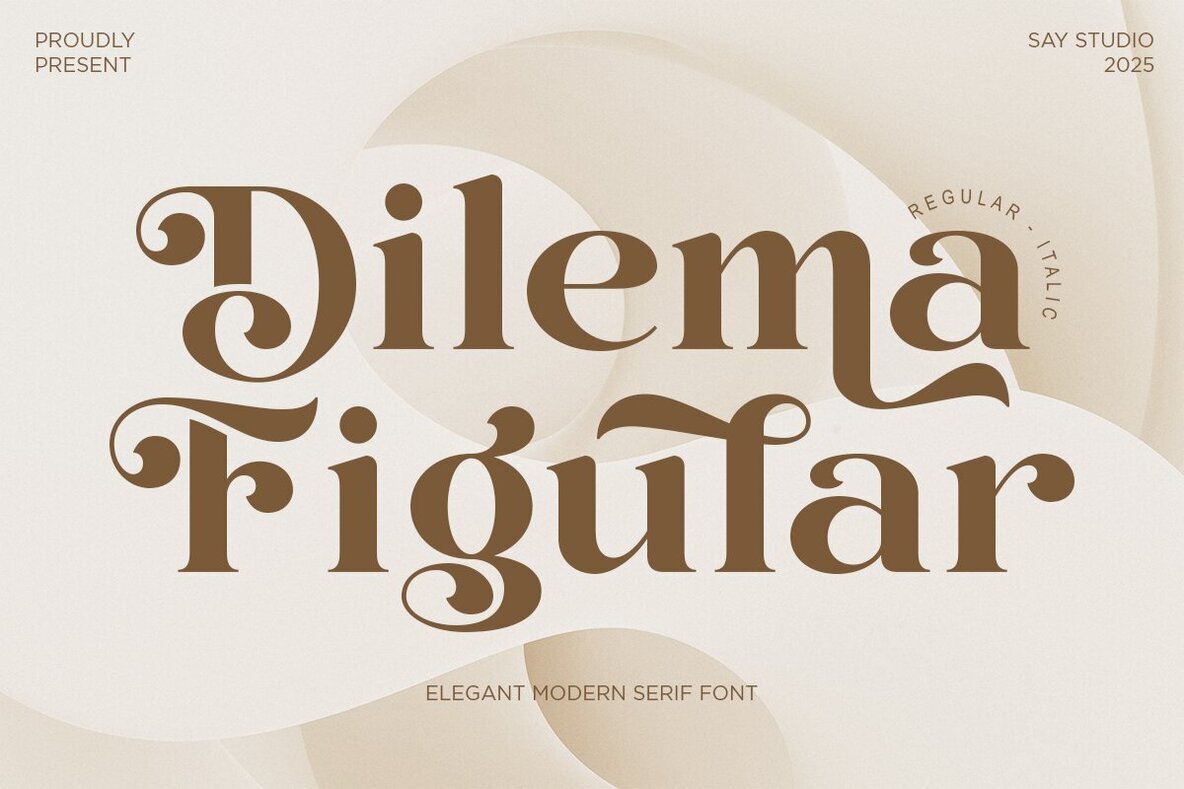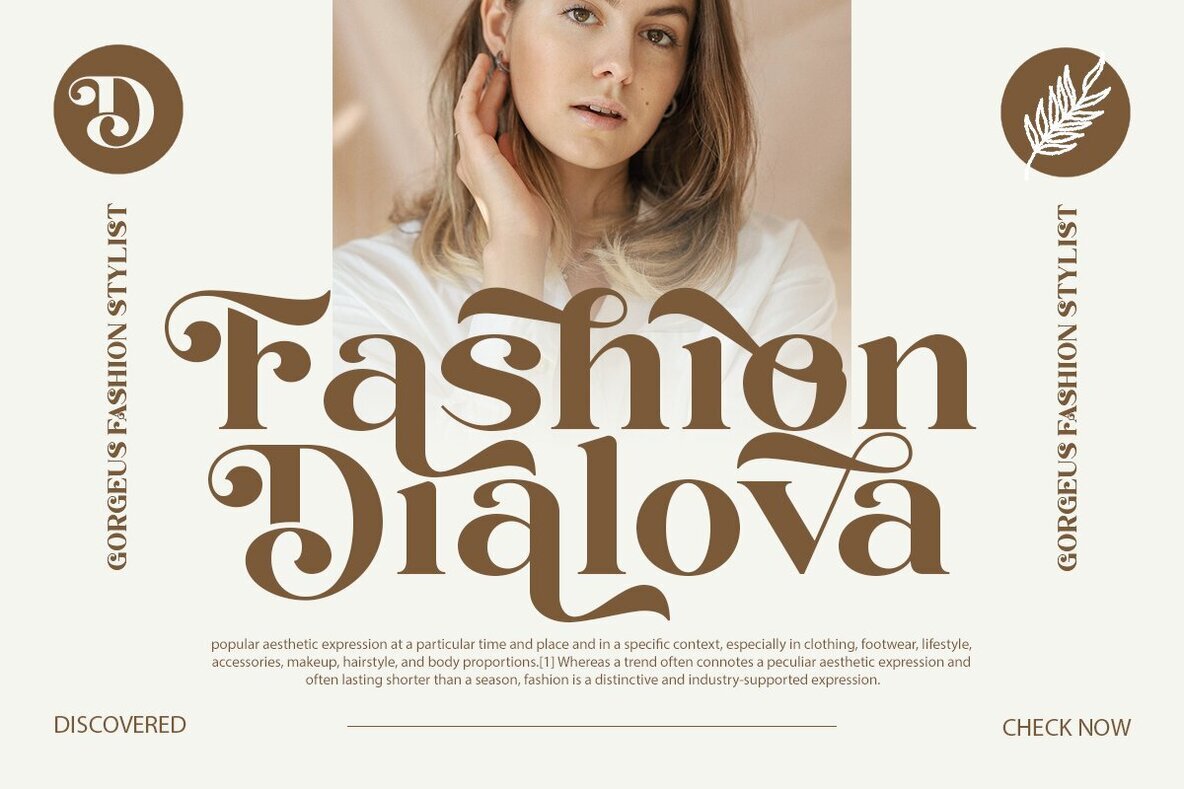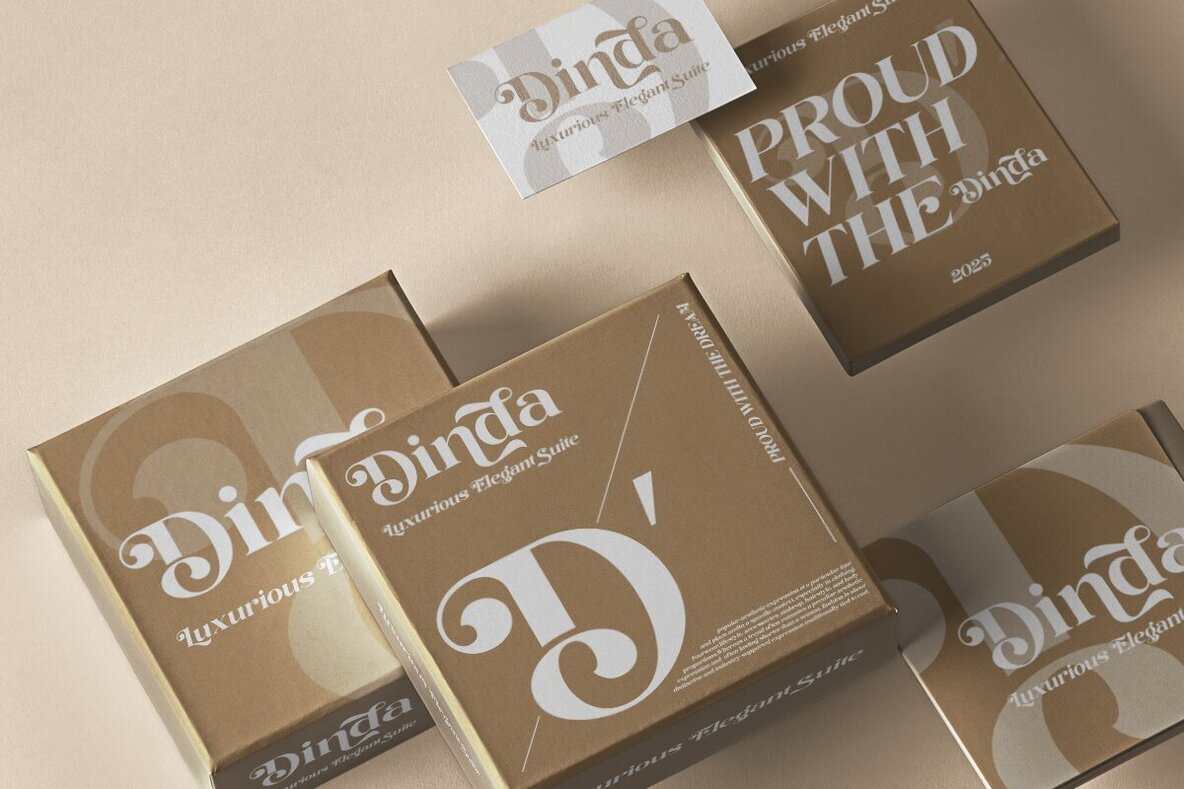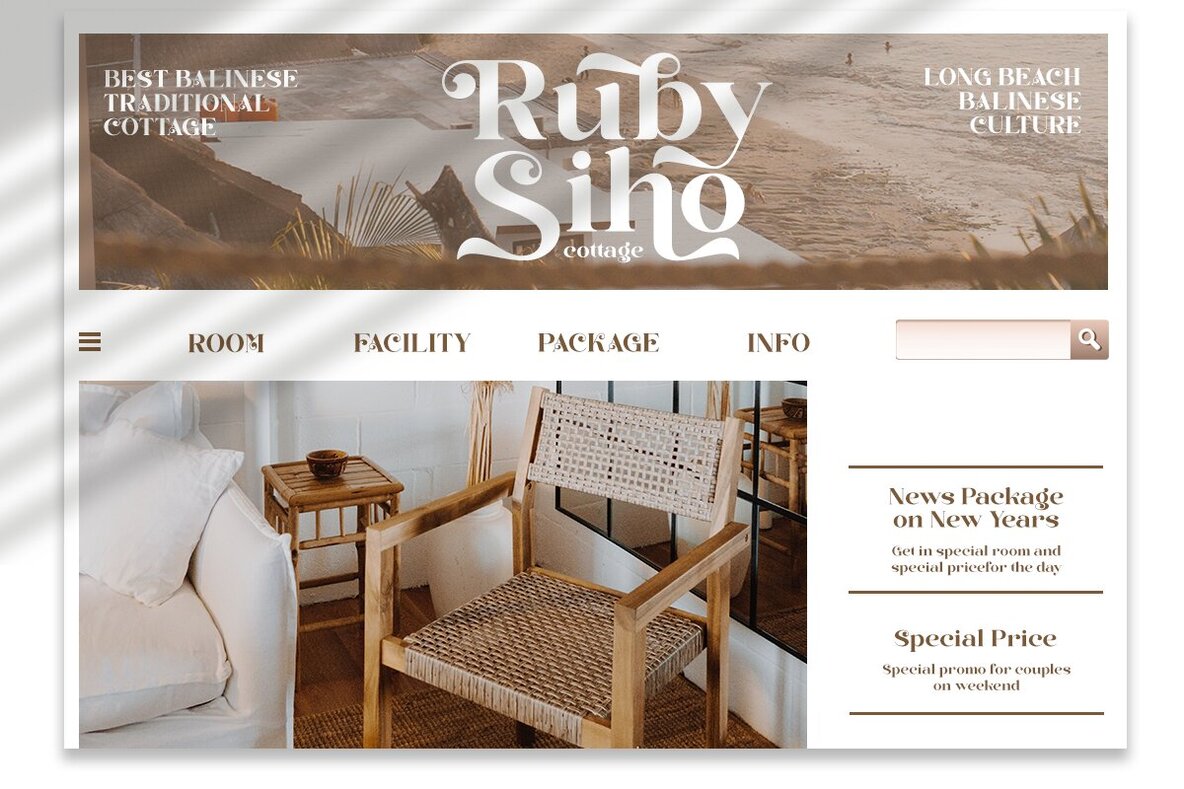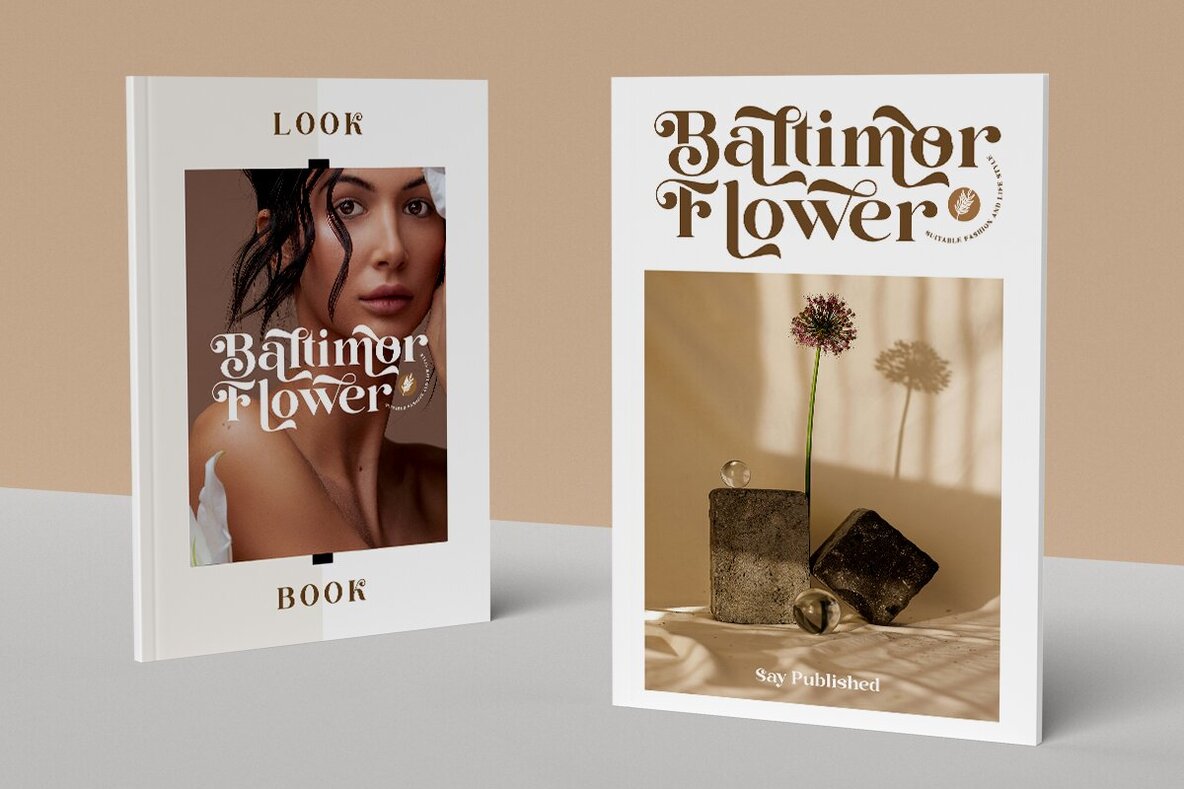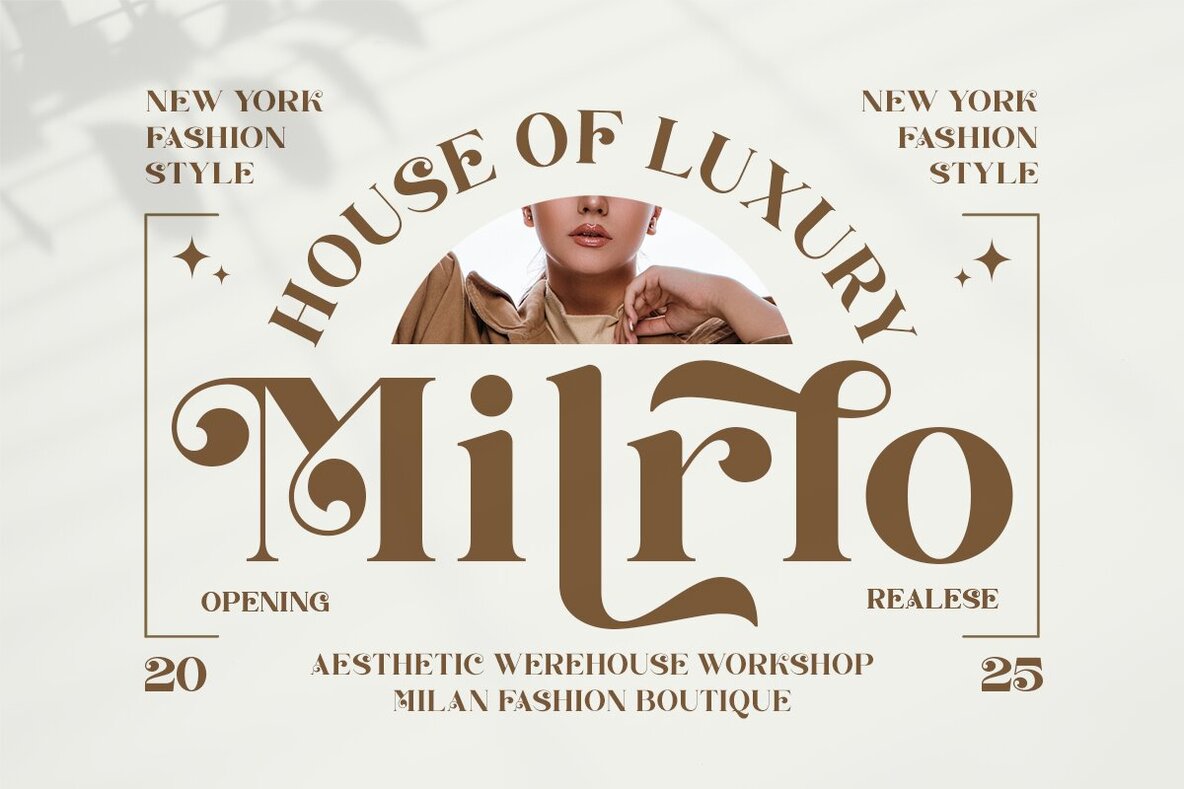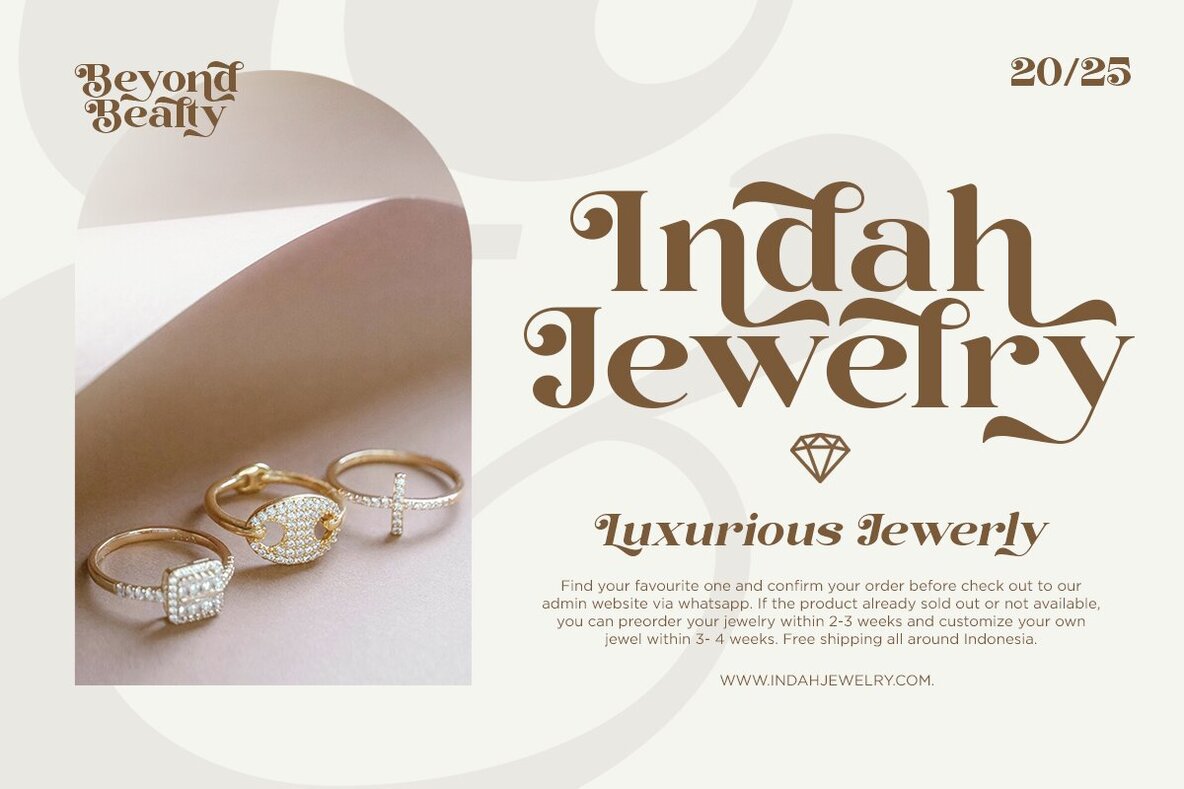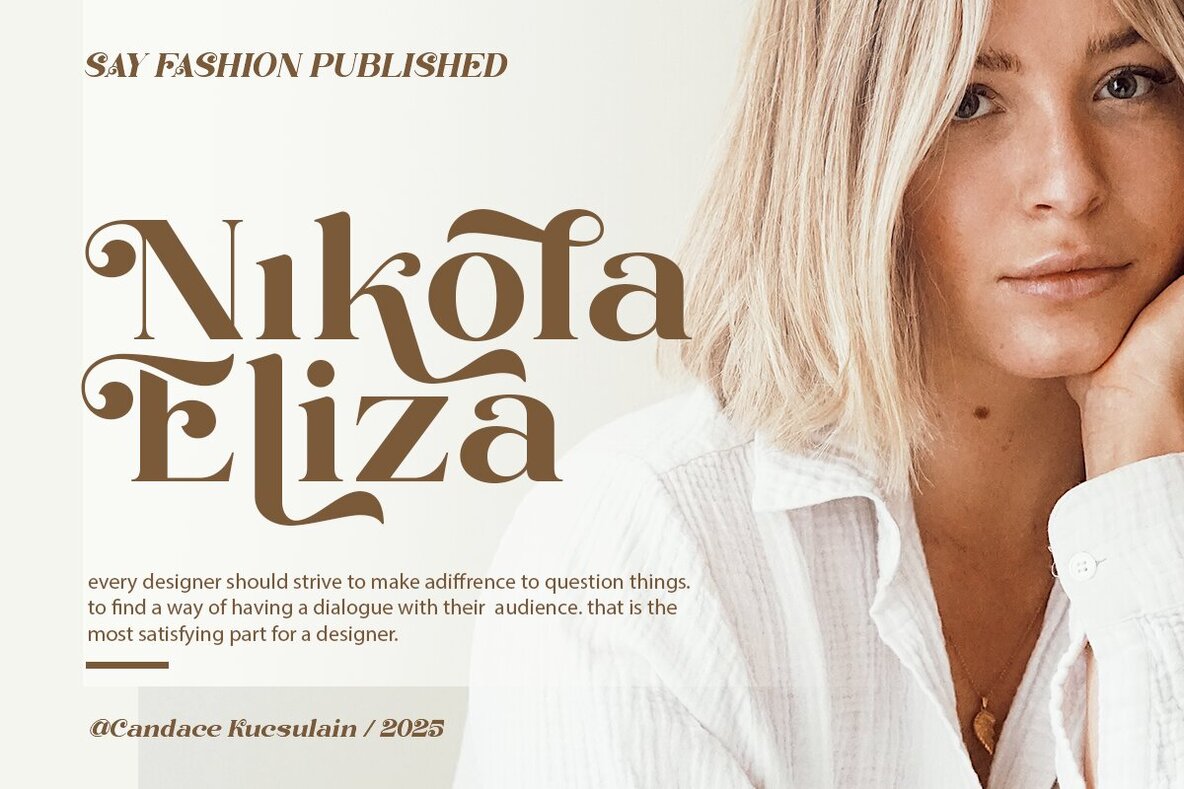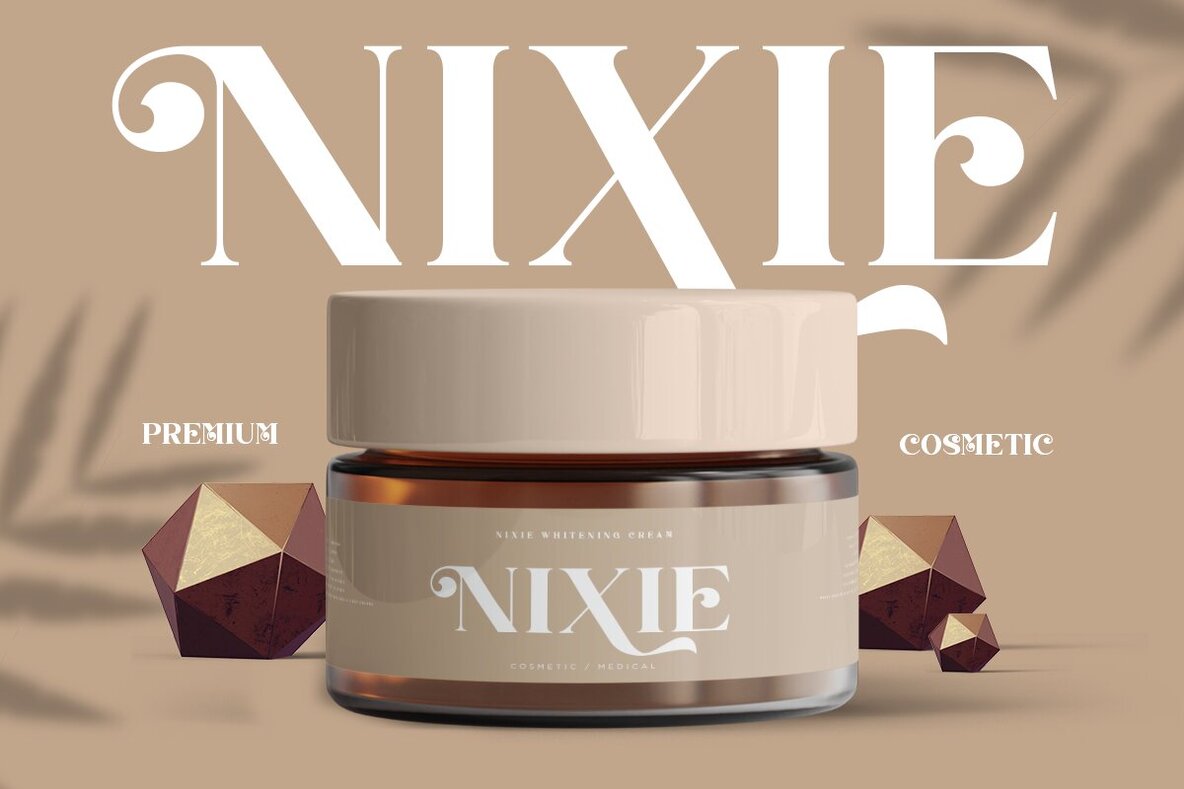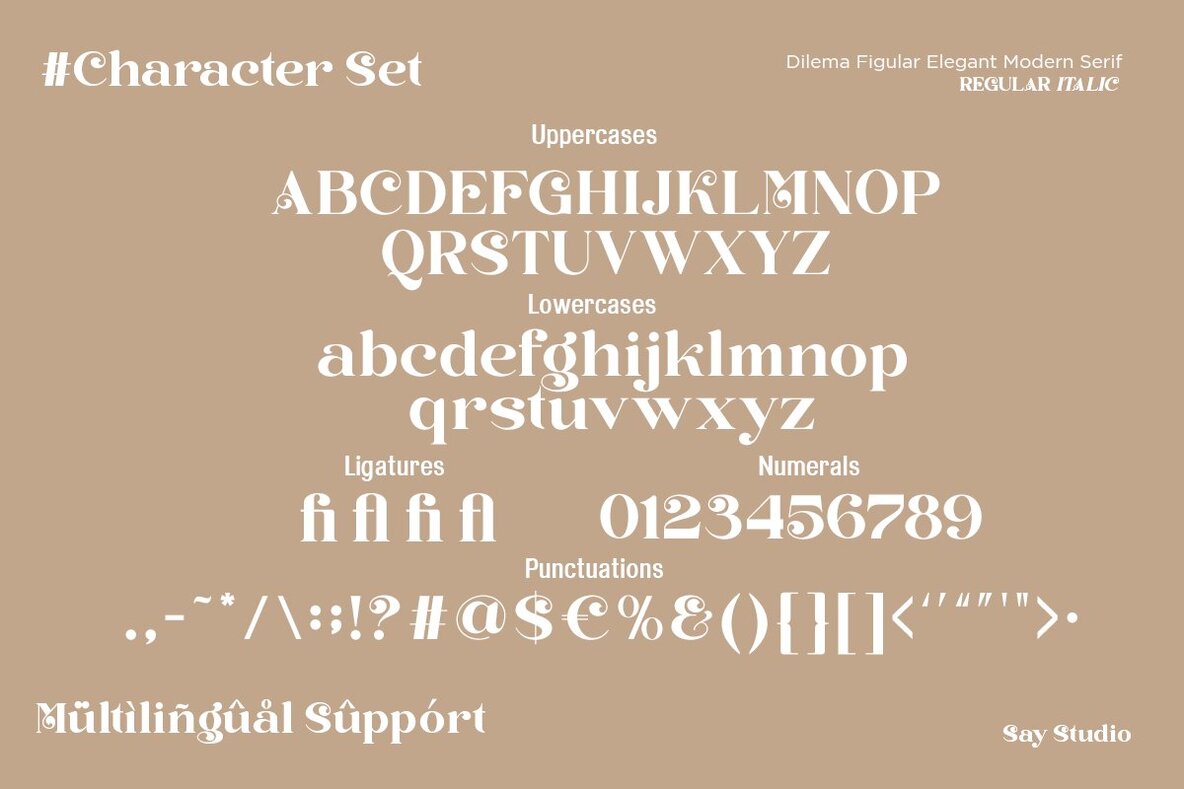
Dilema Figular Font
Dilema Figular delivers a modern serif design with refined curves and expressive details. With both Regular and Italic styles, this font stands out in branding, editorial layouts, wedding invitations, boutique packaging, and elevated visual identities. Its graceful serifs and nuanced contrast establish a look that feels timeless while staying rooted in contemporary design principles. This typeface offers an ideal solution for designers aiming to infuse their work with a romantic and stylish character. The careful balance of classic elegance and modern flair brings a sense of luxury and distinction to every project. Each detail—from the subtle flourishes to the clean structure—enhances visual harmony, making it an excellent choice for high-end branding or striking editorial use.Dilema Figular: Sophisticated Modern Serif Font